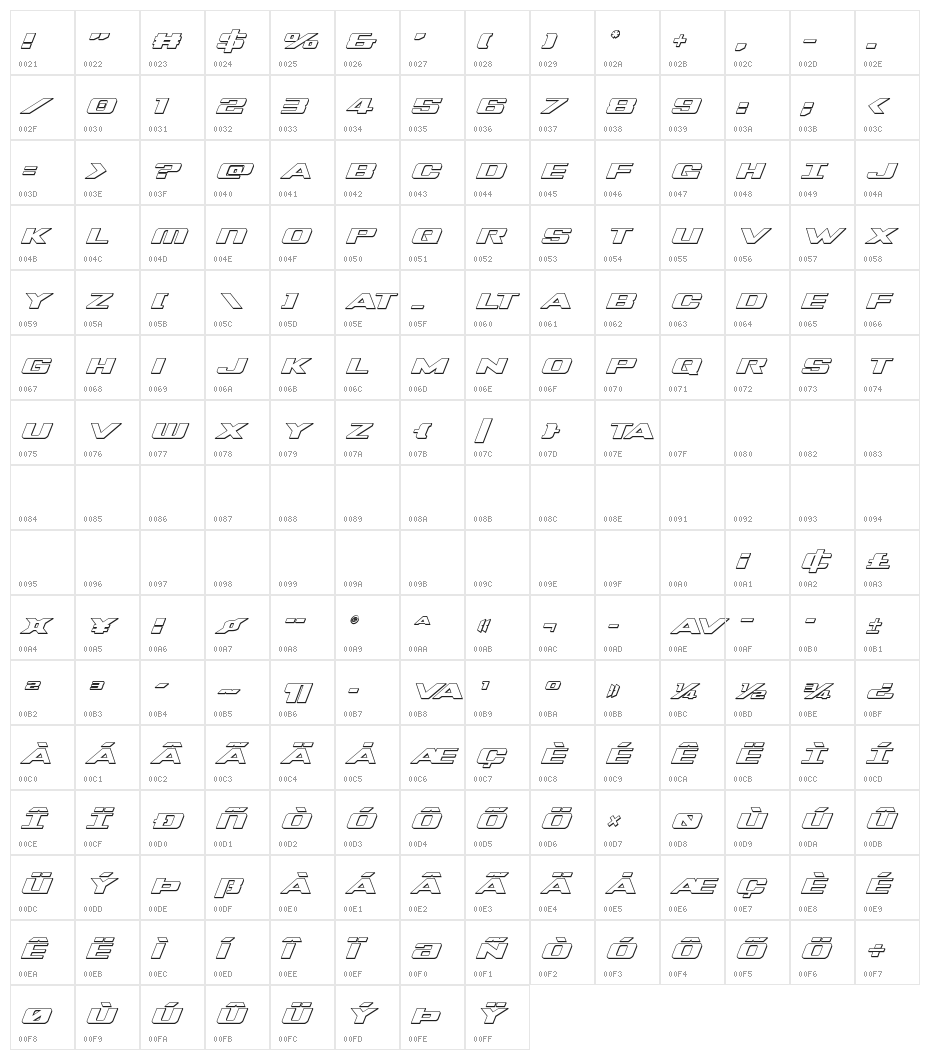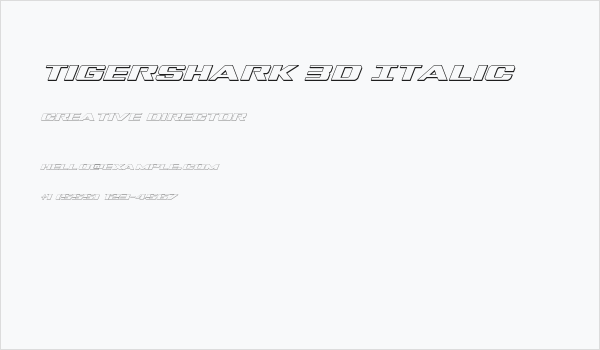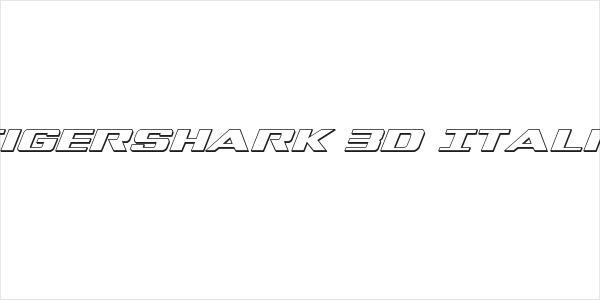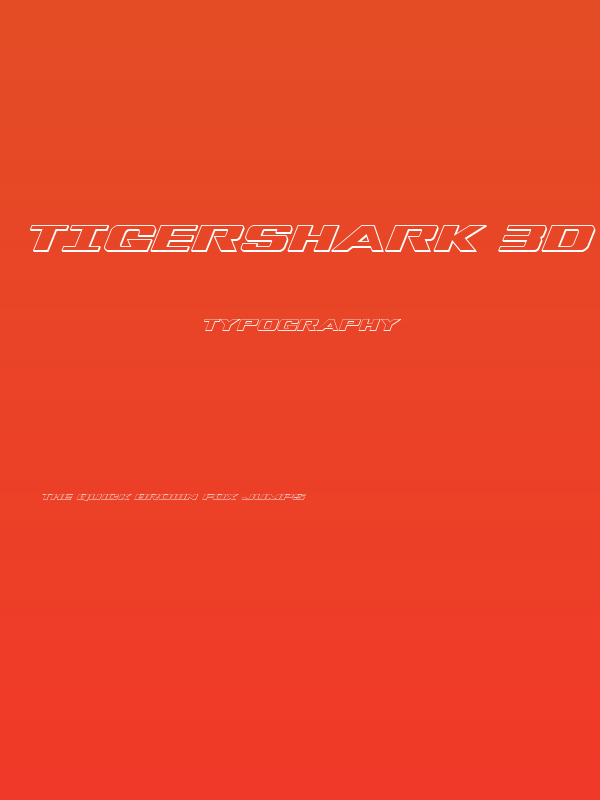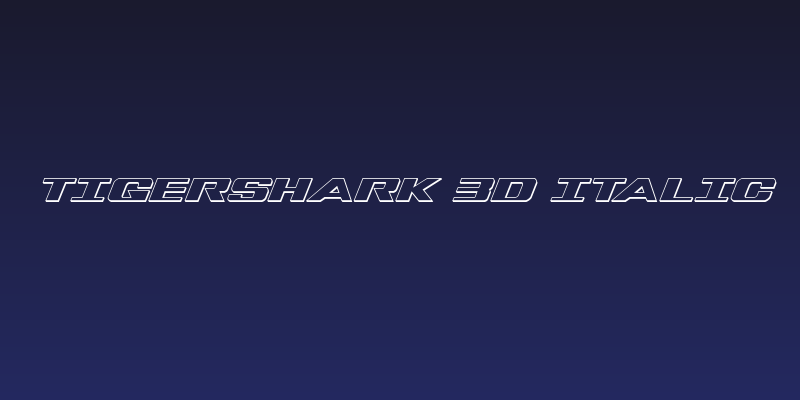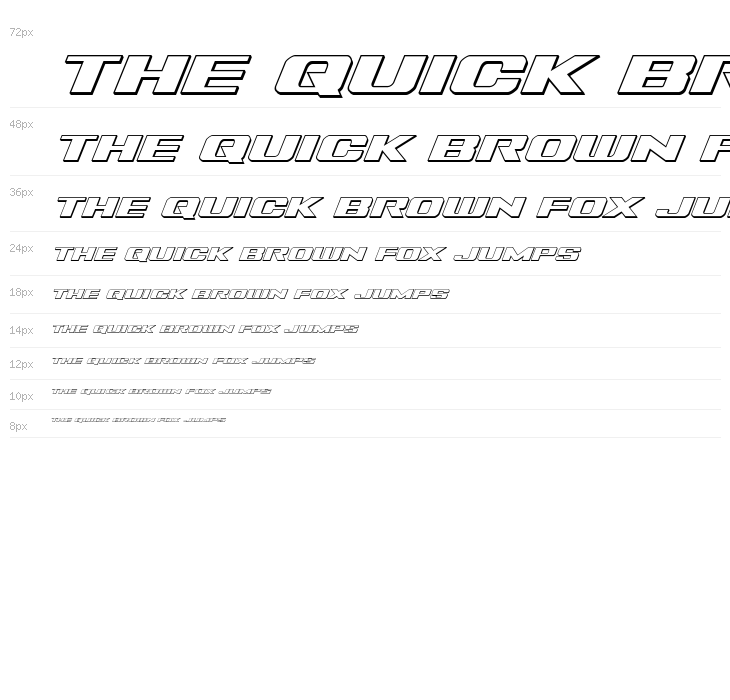
Tigershark 3D Italic Font
Tigershark 3D Italic Description
This font features a bold, three-dimensional design with an italic slant, giving it a dynamic and futuristic appearance. The characters are outlined, creating a sense of depth and movement. The angular and geometric shapes of the letters contribute to a modern and edgy aesthetic. The uppercase and lowercase letters maintain a consistent style, with sharp edges and a uniform stroke width. The numerals and special characters are designed to match the overall theme, ensuring a cohesive look across all elements. This font is ideal for projects that require a strong visual impact and a contemporary feel.
| Proposed Projects | Ideal for video game titles, tech branding, sports logos, and futuristic posters. |